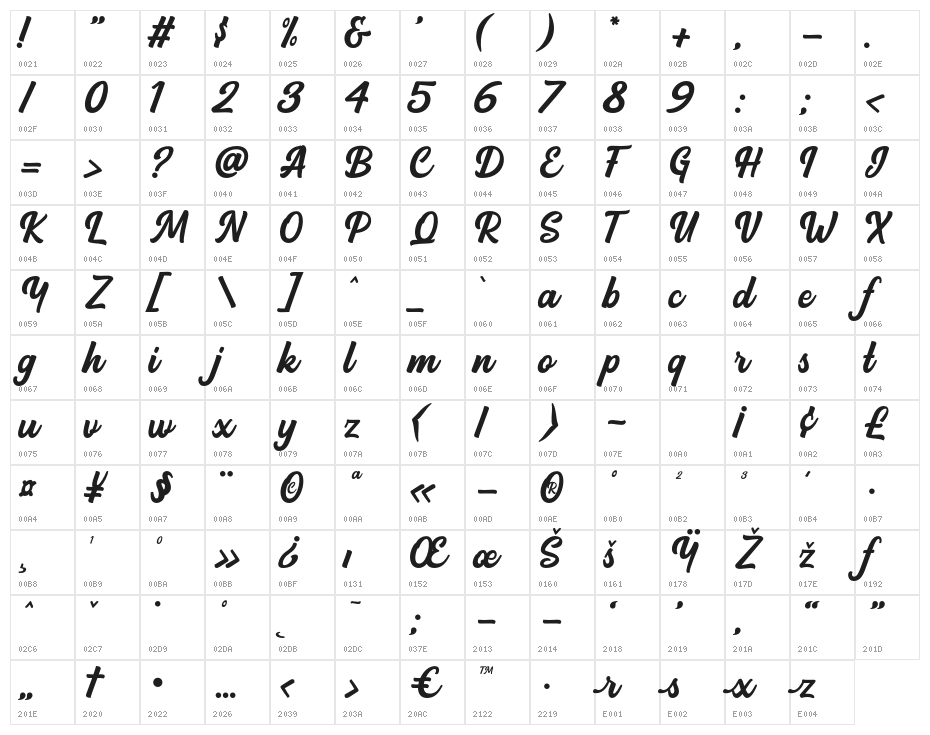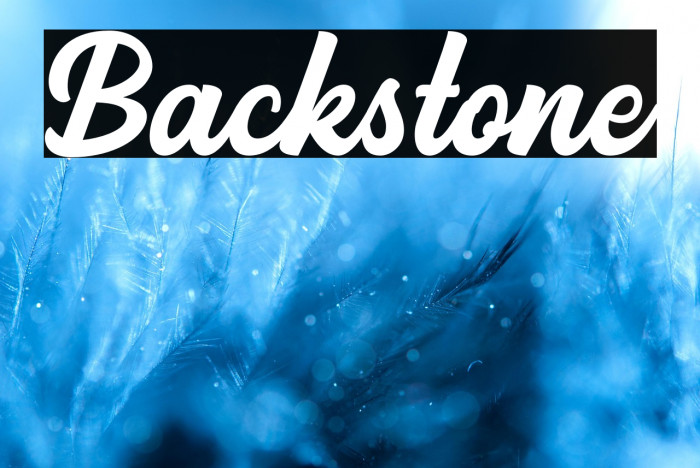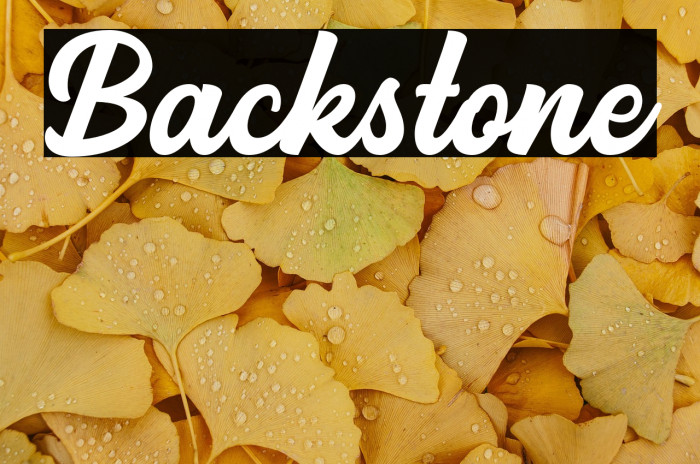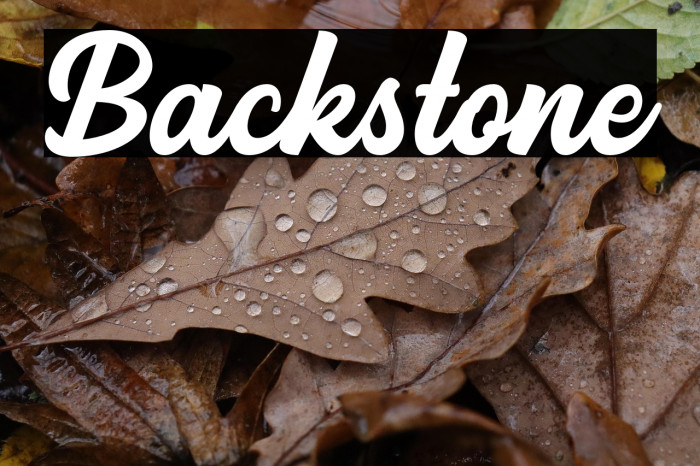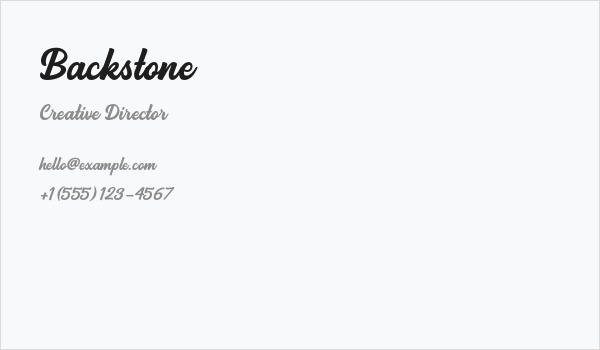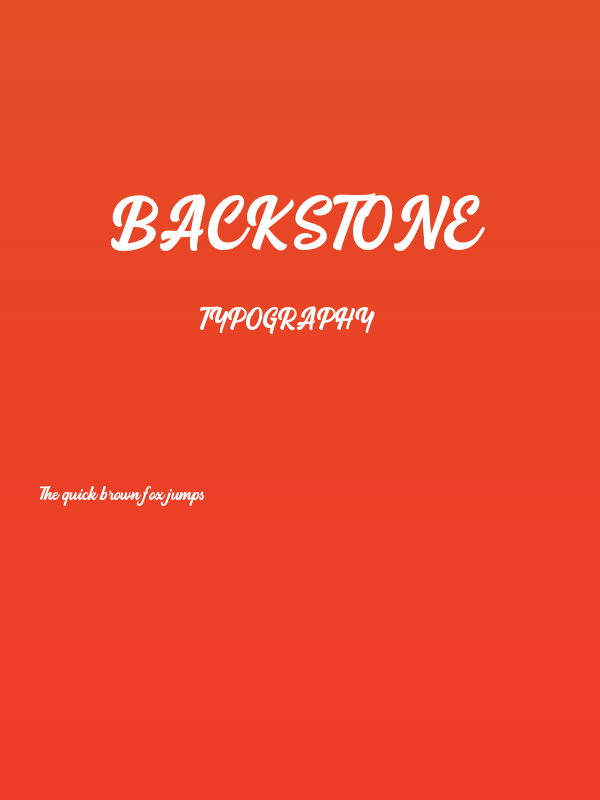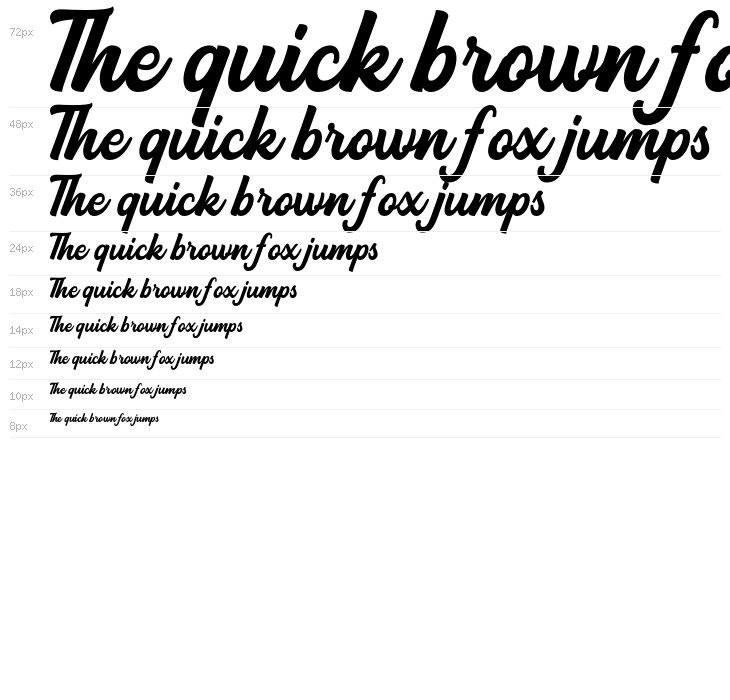
Backstone Font
Backstone Description
This font features a bold, cursive style with a strong emphasis on fluidity and elegance. The uppercase letters are characterized by their sweeping curves and connected strokes, giving a sense of motion and grace. The lowercase letters maintain this fluidity, with rounded forms and consistent stroke widths that enhance readability. Numbers are equally bold and maintain the cursive style, making them stand out. Special characters are designed to match the overall aesthetic, ensuring a cohesive look across all text. The font's boldness and cursive nature make it ideal for projects that require a touch of sophistication and flair.
| Use Case | Logos, Headlines |
| Proposed Projects | Ideal for wedding invitations, branding, and elegant signage. |